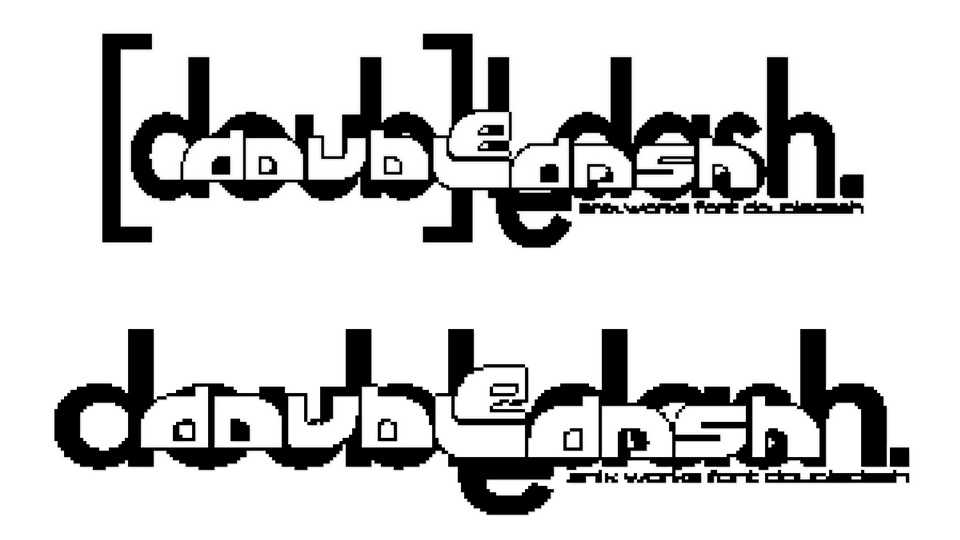
Download Double Dash font, a Y2K inspired typeface. With its retro futuristic blocky look the font is perfect for technology, digital, space galaxy theme.